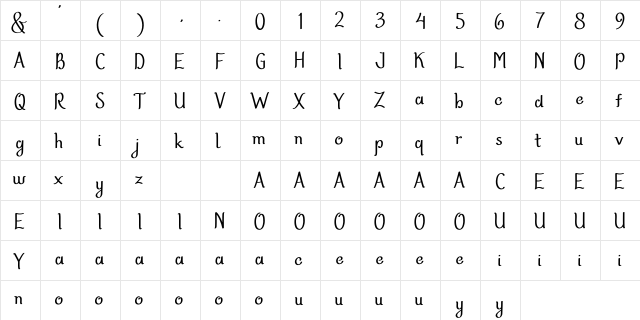
Velonyka Regular
Design Context for Velonyka Typeface
Velonyka is a composed and adaptable typeface that performs quietly and consistently across a wide range of design contexts.